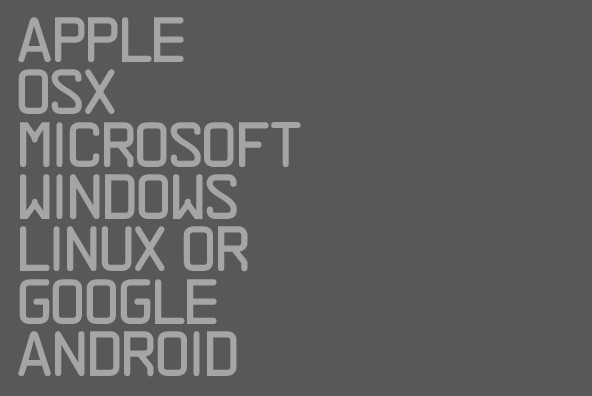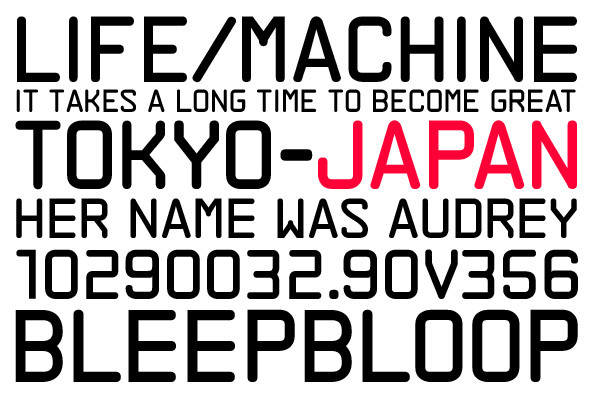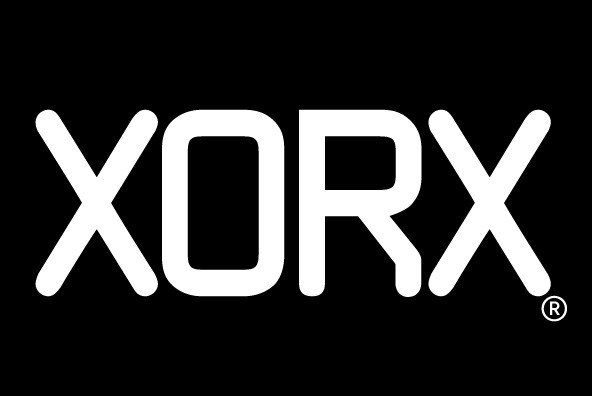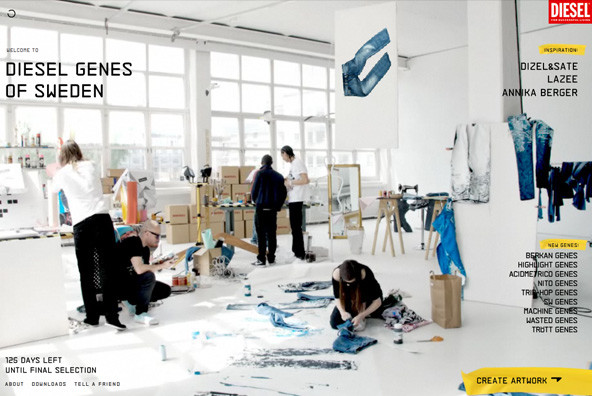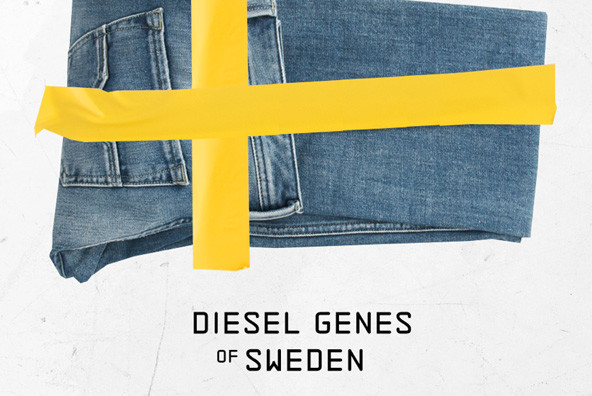
ASCA-D is the latest version in the ASCA series from Suprb and the Subtype foundry. After the original version titled ASCA, ASCA-D was later developed as a lighter and cleaner version to represent Diesel's online presence in Sweden for Diesel Genes. As a fully developed sans-serif this typeface offers support for all european languages.